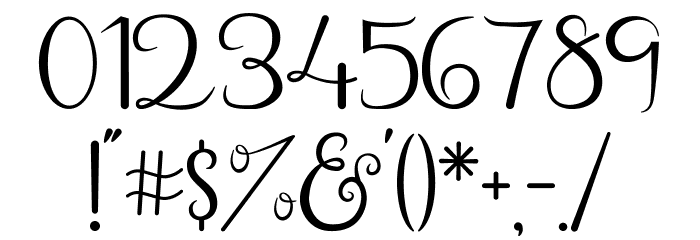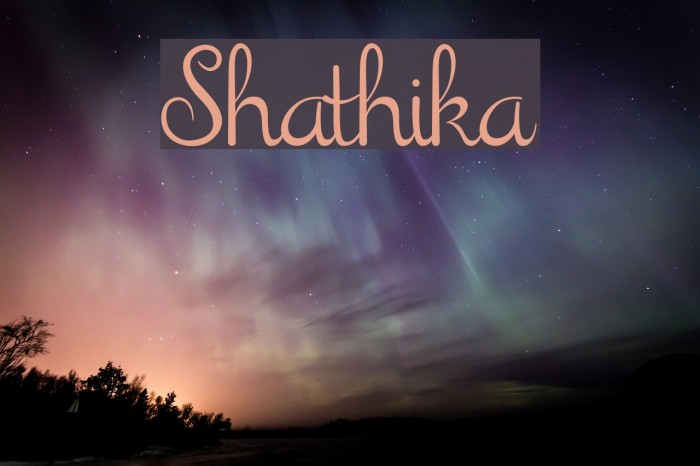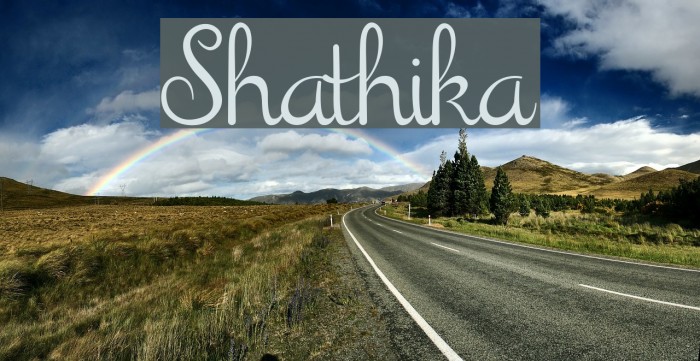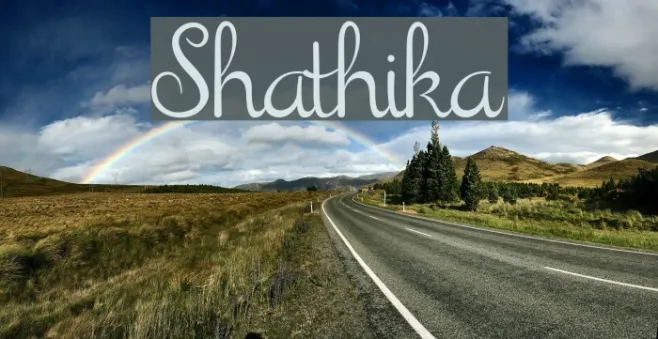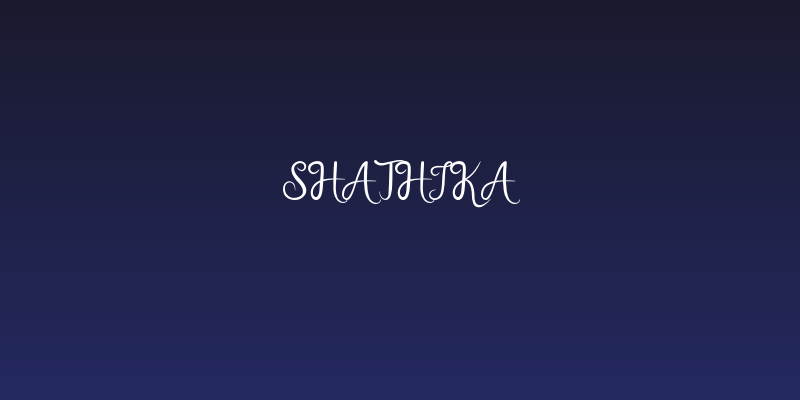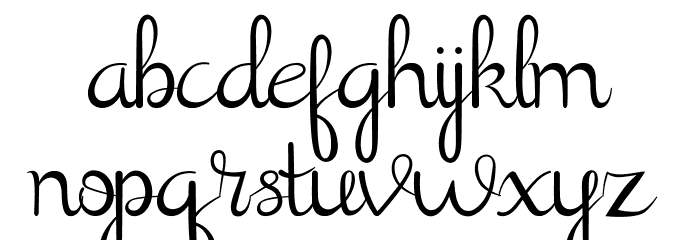
Shathika Font
Shathika Description
This font features a whimsical and elegant script style with a playful yet sophisticated flair. The uppercase letters are characterized by their tall, looping ascenders and descenders, giving them a sense of movement and fluidity. The lowercase letters maintain a consistent flow, complementing the uppercase with their rounded forms and gentle curves. The numerals are distinct and easy to read, incorporating the same flowing style as the letters. Special characters are creatively designed, adding to the font's overall charm. This font is perfect for projects that require a touch of elegance and creativity.